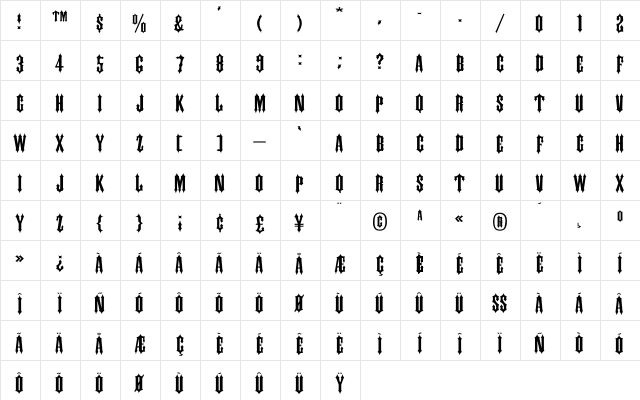
IRONWOOD-Medium Wd Regular
Design Context for IRONWOOD-Medium Wd Typeface
IRONWOOD-Medium Wd taps into classic Western woodtype traditions — bold, characterful, and impossible to ignore.
A natural fit for craft spirits, ranch branding, rodeo events, and Americana-inspired design work.
Font Pairing: Combine IRONWOOD-Medium Wd with a simple slab or neutral sans — period-accurate companions reinforce the vintage feel without competing for attention.
Pro Tip: Use IRONWOOD-Medium Wd for short, impactful bursts of text — it shines in poster headlines and product names rather than extended copy.